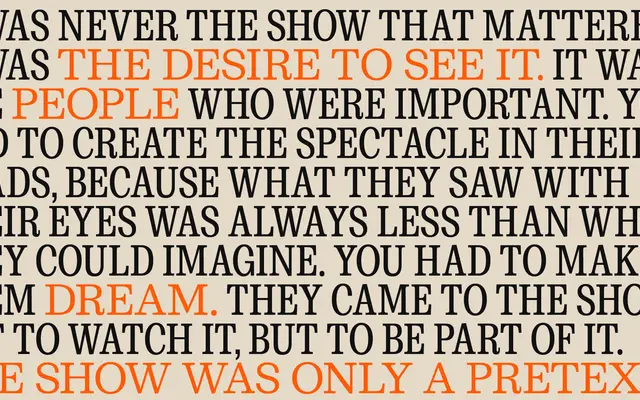
Barnum
Zetafonts · Cosimo Lorenzo Pancini, Mario De Libero · 2023
A Clarendon-model slab serif by Cosimo Lorenzo Pancini that adds serifless treatment on select characters and a variable weight axis across 48 styles including Condensed and Compressed.
Drawing directly from the bracketed slab serifs of Thorowgood and Besley's 1845 Clarendon, Barnum runs eight weights from Book to Ultra across normal, condensed and compressed widths, each with matching italics. Lighter cuts are drawn with transitional proportions suited to body text, while heavier cuts shift toward display work with more commanding stroke contrast. The serifless treatment on C, G and S gives the family a modest brutalist inflection that distinguishes it from straightforward historical revivals.
Barnum is a Clarendon-model slab serif, rooted in the bracketed, high-contrast slab serif tradition originating with Thorowgood and Besley in 1845, with deliberate departures including serifless variants on key characters.